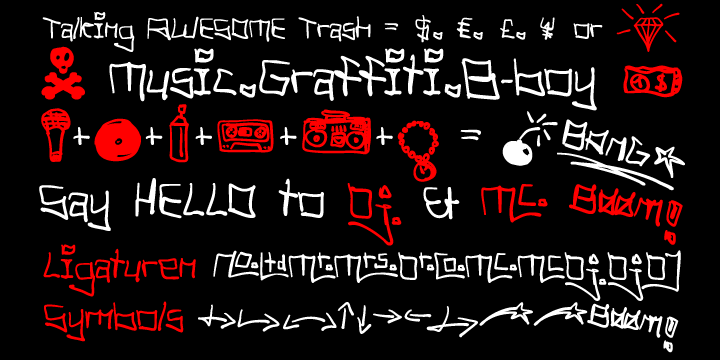
Font name: | Tag Hand Graffiti Trash |
Author: | Manuel Viergutz | Typo Graphic Design |
Headline Font / Display Font / Fancy Font "Tag Hand Graffiti Trash" OpenType Font with 393 glyphs - alternative letters and ligatures (with accents & €) & 2 styles (regular & fat) + dingbats INFO If you want to use this font for commercial projects, please contact me: manuel-viergutz[at]gmx.de or donate an amount greater-than-or-equal EUR 15/$ 19 (for commercial licence). I also appreciate it if you send me links/images of your (non)-commercial work featuring this font |